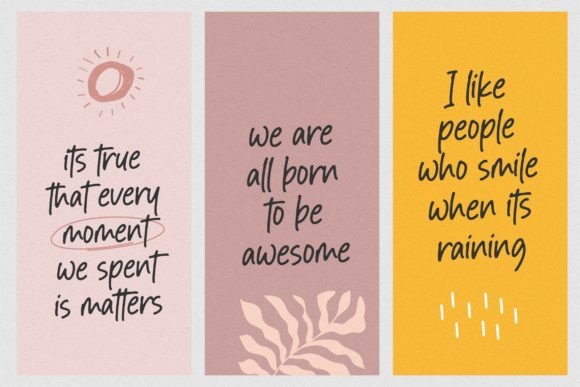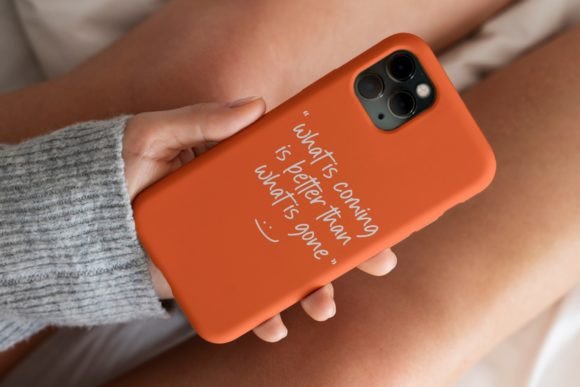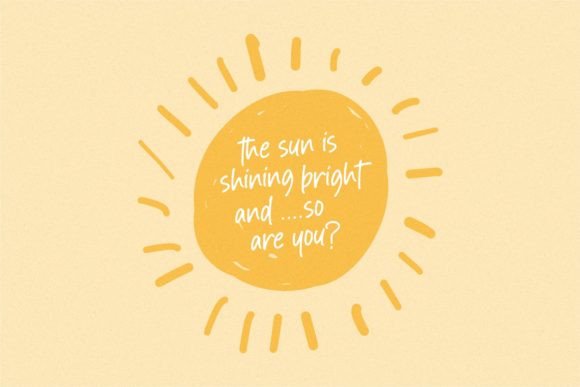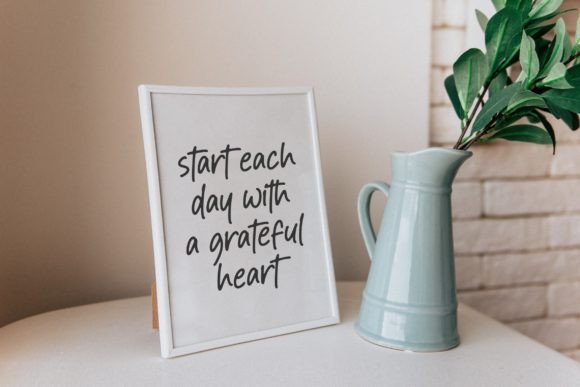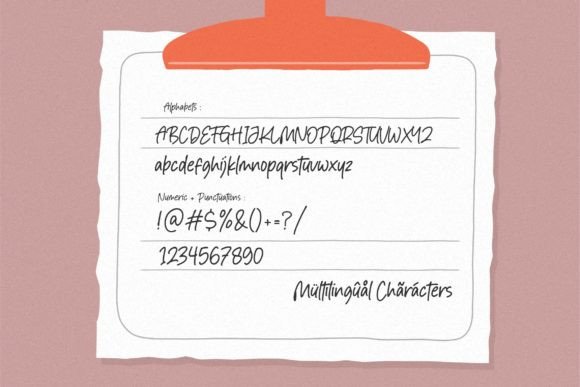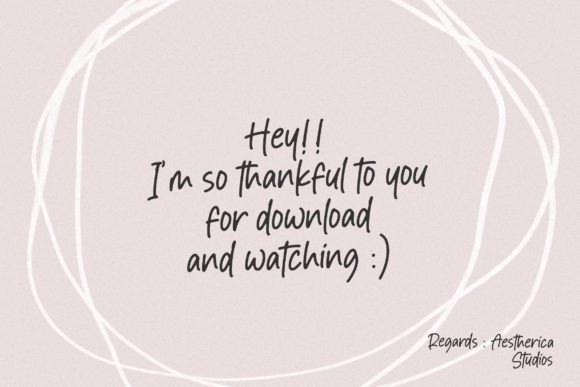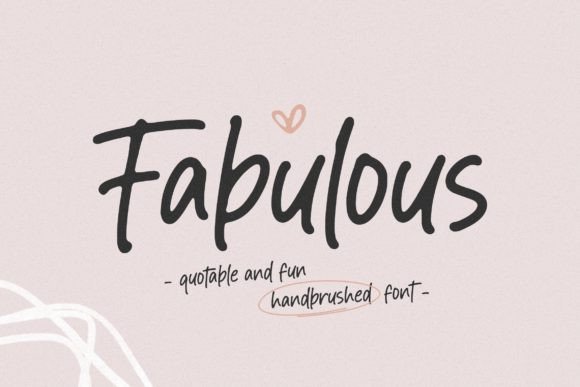
Fabulous Font: Elevate Your Designs with a Quotable and Fun Hand-Brushed Font
Are you tired of using the same old fonts in your designs? Look no further than Fabulous, a unique and playful hand-brushed font that’s sure to take your projects to the next level. With its quotable and fun style, Fabulous is the perfect choice for designers and crafters looking to add a personal touch to their work.
What Makes Fabulous Font So Special?
Fabulous is more than just a font – it’s an experience. Its hand-brushed texture gives it a warm, organic feel that’s perfect for creating custom and touching typographic designs. Whether you’re working on a display quote project, a title, or a logotype, Fabulous is sure to inspire you to create something unique and fun.
Endless Design Possibilities with Fabulous Font
One of the best things about Fabulous is its versatility. This font can be used in a wide range of design projects, including:
• Titles: Add a touch of personality to your titles with Fabulous’ playful and quotable style.
• Flyers: Create eye-catching flyers that grab attention with Fabulous’ bold and hand-brushed texture.
• Greeting Cards: Add a personal touch to your greeting cards with Fabulous’ warm and organic feel.
• Product Packaging: Stand out from the crowd with Fabulous’ unique and playful style on your product packaging.
• Book Covers: Create a lasting impression with Fabulous’ bold and eye-catching font on your book covers.
• Printed Quotes: Add a touch of inspiration to your printed quotes with Fabulous’ quotable and fun style.
• Logotypes: Create a memorable logotype with Fabulous’ hand-brushed texture and playful personality.
• Clothing Designs: Add a touch of personality to your clothing designs with Fabulous’ bold and eye-catching font.
• Album Covers: Create a lasting impression with Fabulous’ unique and playful style on your album covers.
Why Choose Fabulous Font?
So why choose Fabulous font for your next design project? Here are just a few reasons:
• Unique Style: Fabulous has a unique and playful style that’s sure to set your designs apart from the crowd.
• Hand-Brushed Texture: The hand-brushed texture of Fabulous gives it a warm, organic feel that’s perfect for creating custom and touching typographic designs.
• Versatility: Fabulous can be used in a wide range of design projects, from titles and flyers to logotypes and clothing designs.
• Inspiration: Fabulous is sure to inspire you to create something unique and fun, whether you’re working on a display quote project or a product packaging design.
Tips for Using Fabulous Font
Here are a few tips for getting the most out of Fabulous font:
• Experiment with Colors: Fabulous looks great in a wide range of colors, so don’t be afraid to experiment and find the perfect hue for your design.
• Play with Texture: The hand-brushed texture of Fabulous is one of its best features, so try combining it with other textures for a unique look.
• Use it as a Statement Piece: Fabulous is a bold and eye-catching font, so use it as a statement piece in your design to draw attention to a particular element.
In conclusion, Fabulous font is a quotable and fun hand-brushed font that’s perfect for designers and crafters looking to add a personal touch to their work. With its unique style, versatility, and inspirational qualities, Fabulous is sure to take your designs to the next level. So why wait? Download Fabulous font today and start creating something truly special.